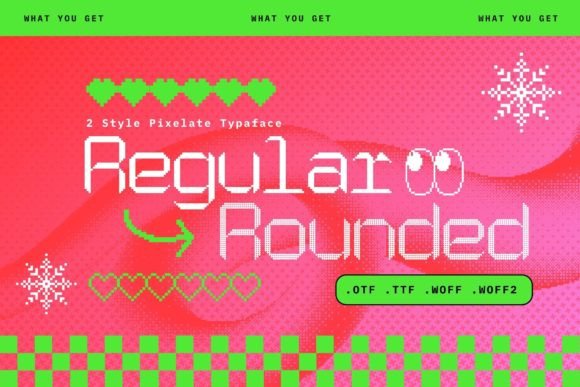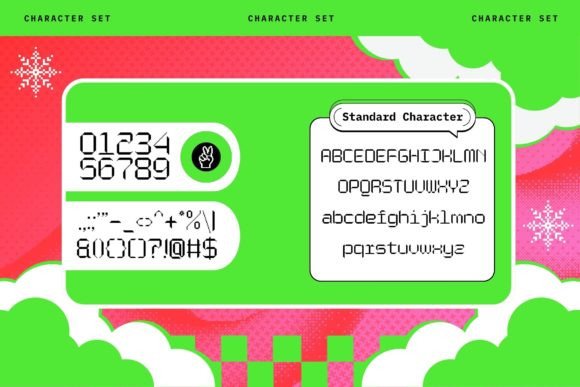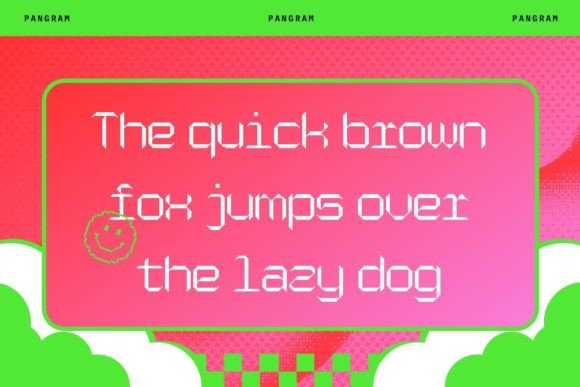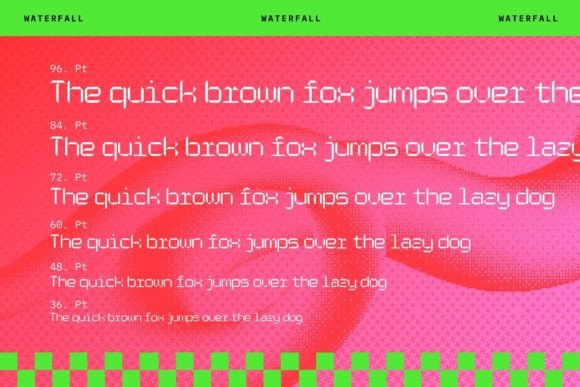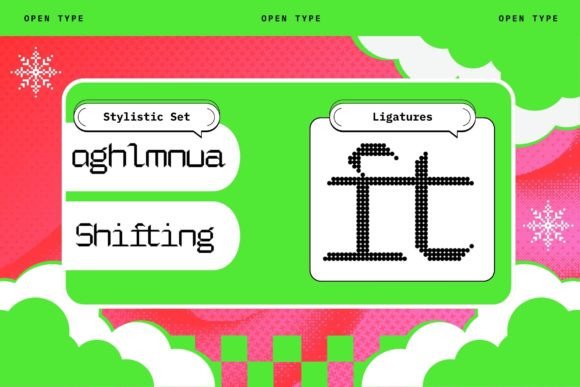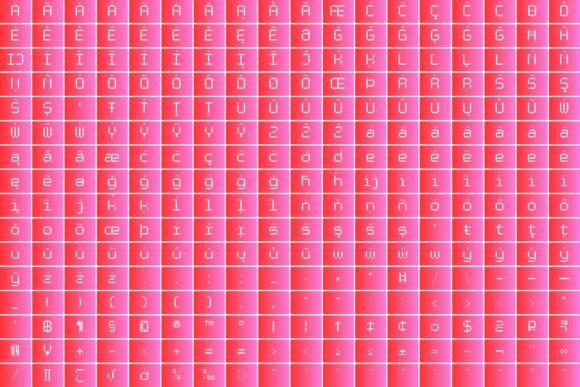
Introduction to Pixalatte Font
Do you remember the thrill of creating your first digital masterpiece in the early 2000s? The hours spent crafting pixelated masterpieces in MS Paint, the excitement of sharing them with friends, and the sense of pride when they went viral? Those were the days when the internet was still in its infancy, and creativity knew no bounds. If you’re feeling nostalgic for those carefree days, get ready to unleash your inner child with the stunning Pixalatte Font.
As a valuable resource for designers, the Pixalatte Font offers a unique blend of typography and pixel art that’s both retro and modern. With its high-quality design and transparent background, this font is perfect for creative projects that demand a touch of nostalgia and sophistication. Whether you’re working on a personal project or a commercial design, the Pixalatte Font is a must-have design resource that will elevate your work to the next level.
- Unique characteristics: Pixalatte Font boasts a distinctive and modern aesthetic, making it an excellent choice for designers seeking a creative and eye-catching font for their projects.
Honest Review: Pixalatte Font
- The high-quality design of the font is truly impressive. It’s perfect for any creative project that requires a unique touch.
- The font’s versatility is another major plus. It can be used for a wide range of applications, from logos to typography.
- The font’s limited character set may be a drawback for some designers. It’s not suitable for complex texts or long paragraphs.
Overall, I’m impressed with the Pixalatte Font. It’s a fantastic design resource that can add a unique touch to any creative project. While it may have some limitations, its high-quality design and versatility make it a valuable addition to any designer’s toolkit.